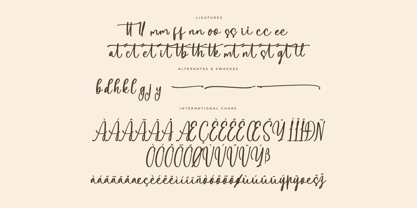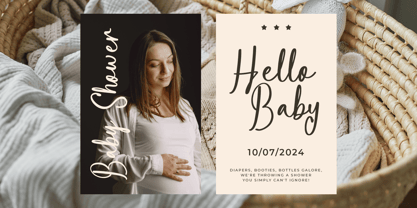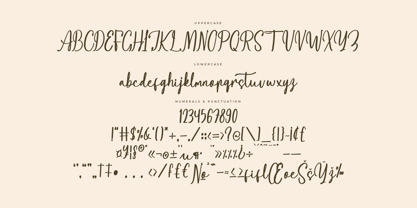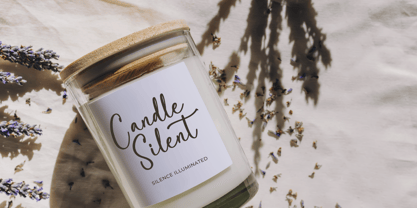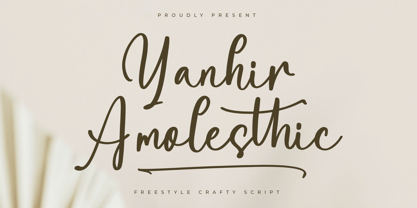
Yanhir Amolesthic
by Letterena Studios
The Yanhir Amolesthic Font Family was designed by Heru Utama Putra and published by Letterena Studios. Yanhir Amolesthic contains 2 styles and family package options. More about this family
Yanhir Amolesthic is an elegant script font exuding sophistication and charm. With graceful curves and flowing lines, it embodies a sense of timeless beauty. Perfect for adding a touch of refinement to invitations, branding, or any project requiring a stylish and captivating script font.